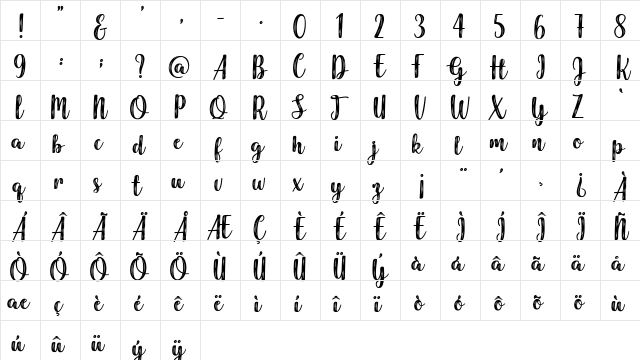
Harmonious Calendar Regular
Design Context for Harmonious Calendar Typeface
Harmonious Calendar is a composed and adaptable typeface that performs quietly and consistently across a wide range of design contexts.
Pro Tip: Use Harmonious Calendar in both headline and body roles to test its range before committing to a single application.